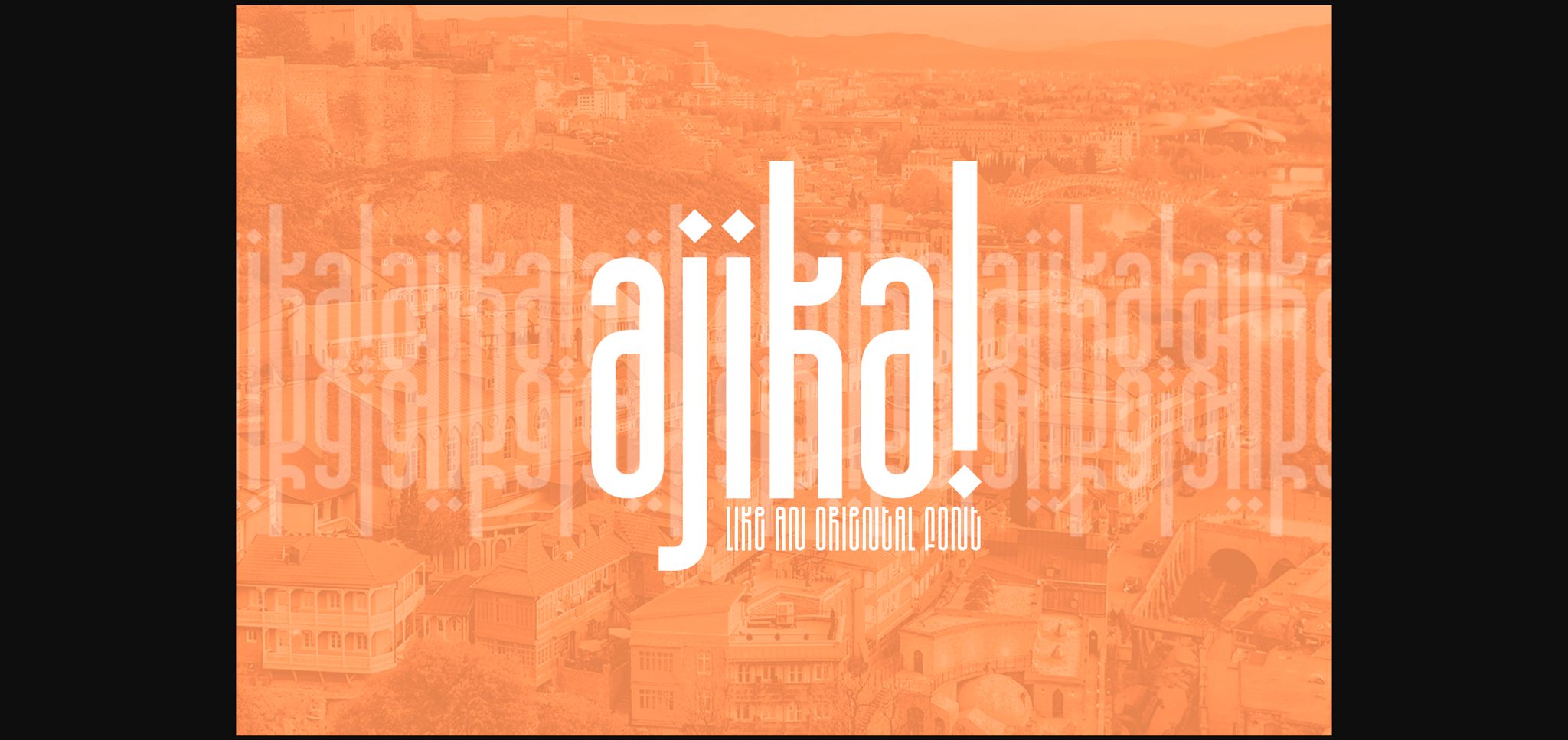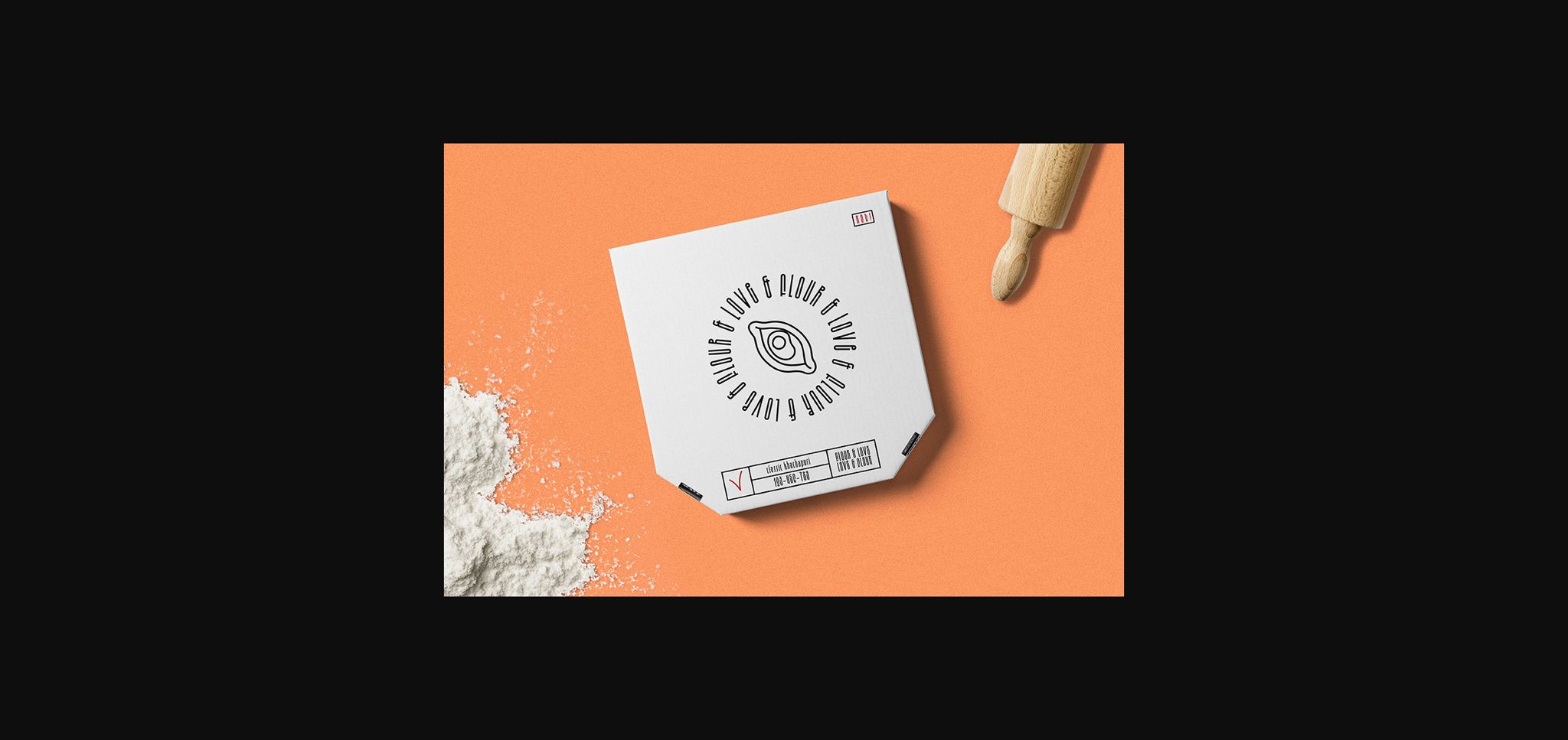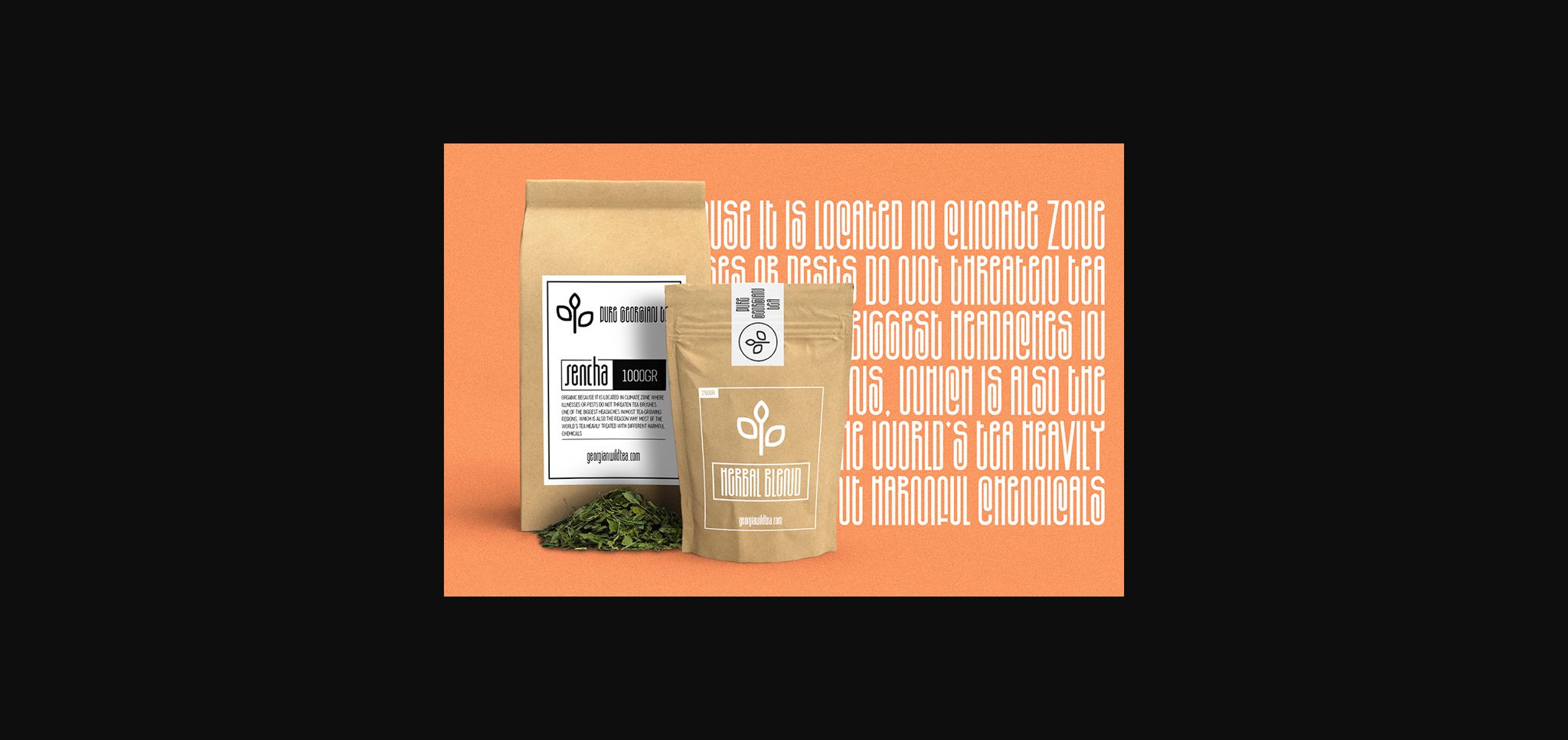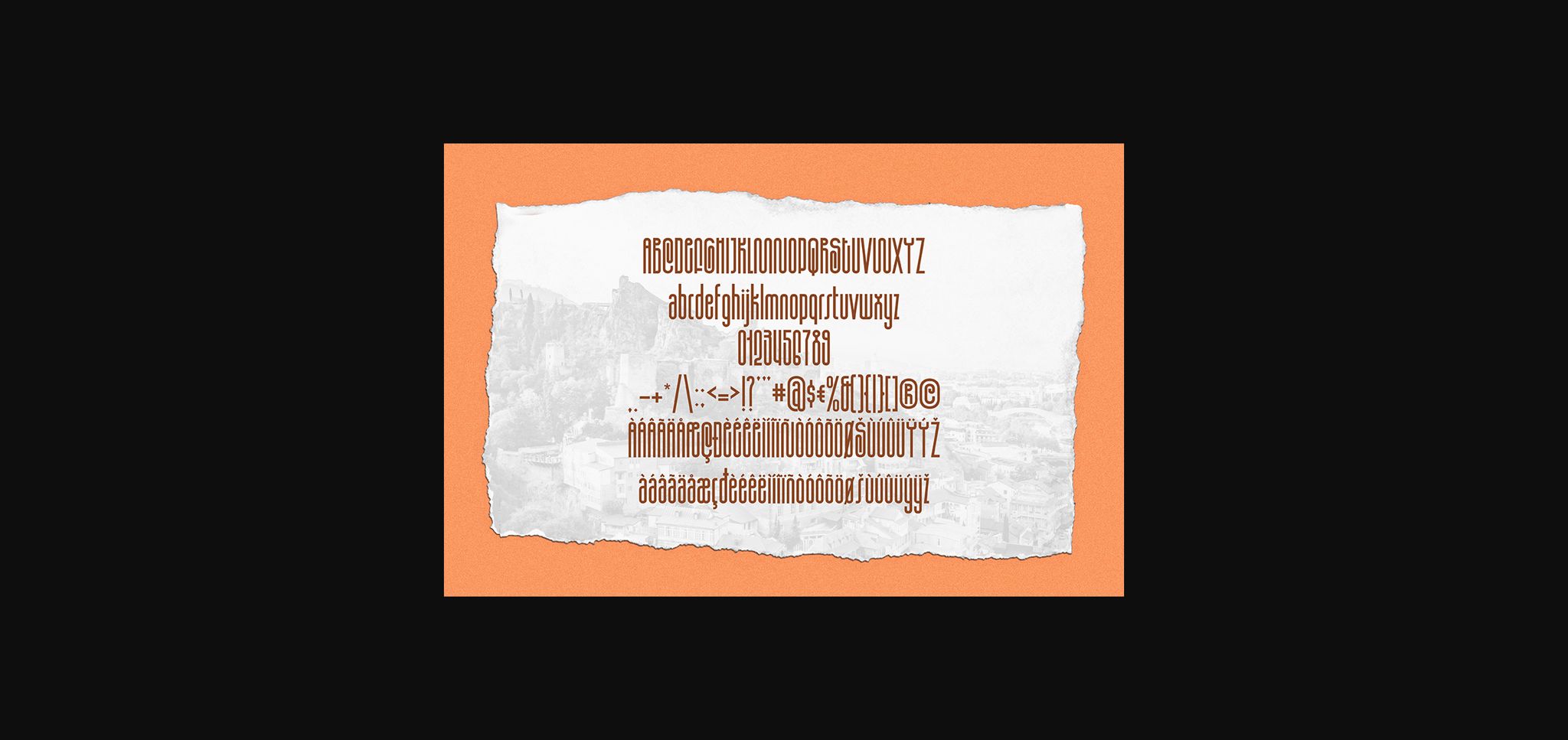
Ajika Font
About Ajika Font
Ajika is a modern and clean lettered sans serif font. Simple but with a strong visual effect, this font will instantly make your creation more appealing than any others.